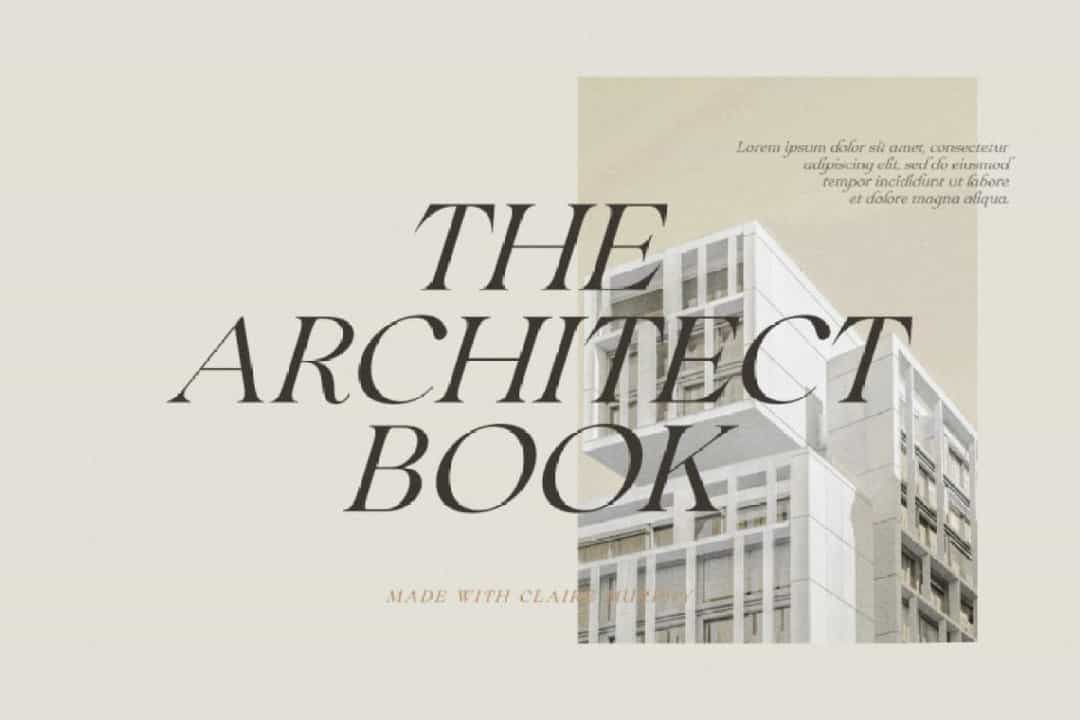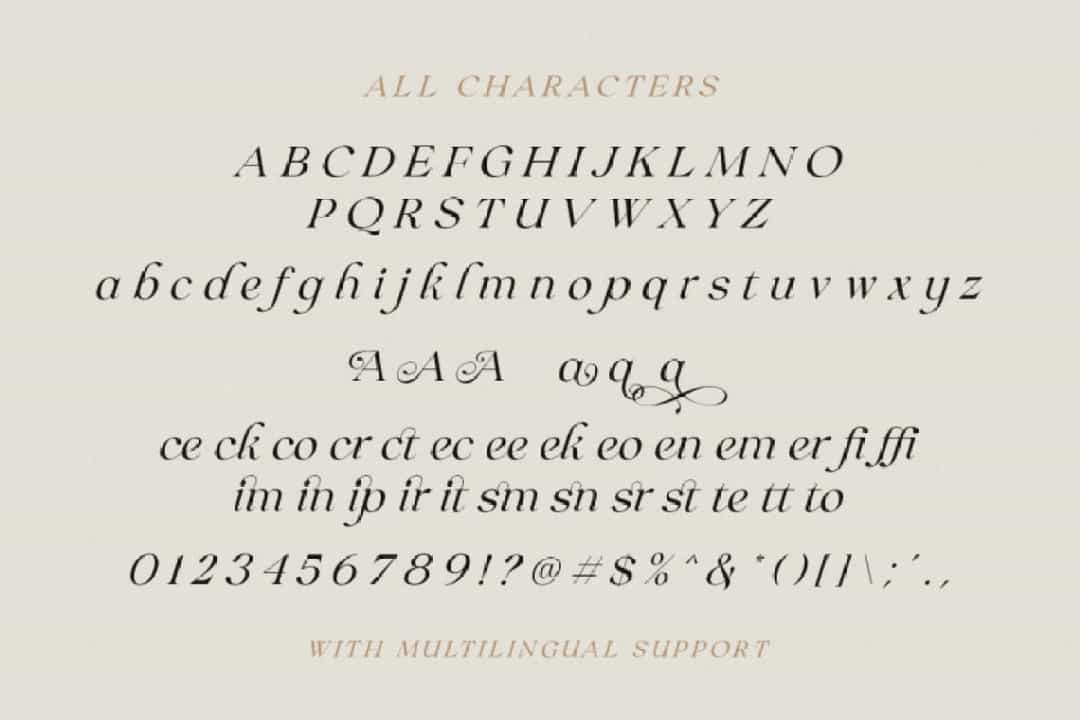
Claire Murphy is an elegant serif font with classic styling that adds a pop to every design. Enjoy using this fun typeface and its many possibilities; PUA encoded so you can access all characters and symbols easily!